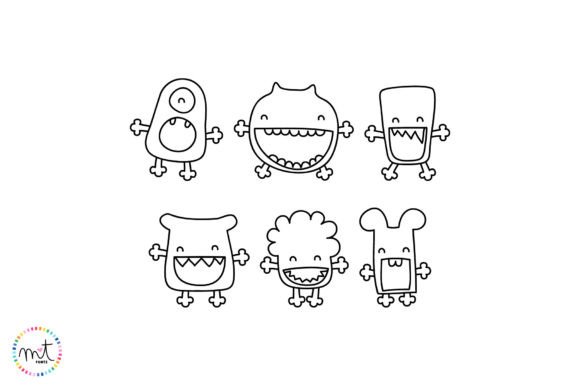
Sweet Dings Halloween is a fun and jolly dingbats font featuring adorable hand-drawn Halloween themed doodles. It is a doodled set of dings that can decorate your writing and make it come to life.
Sweet Dings Halloween Font